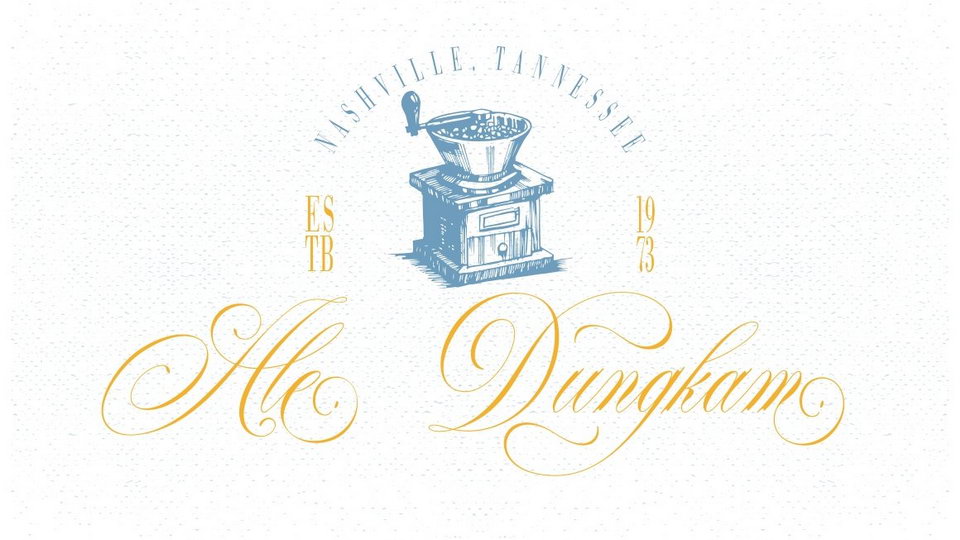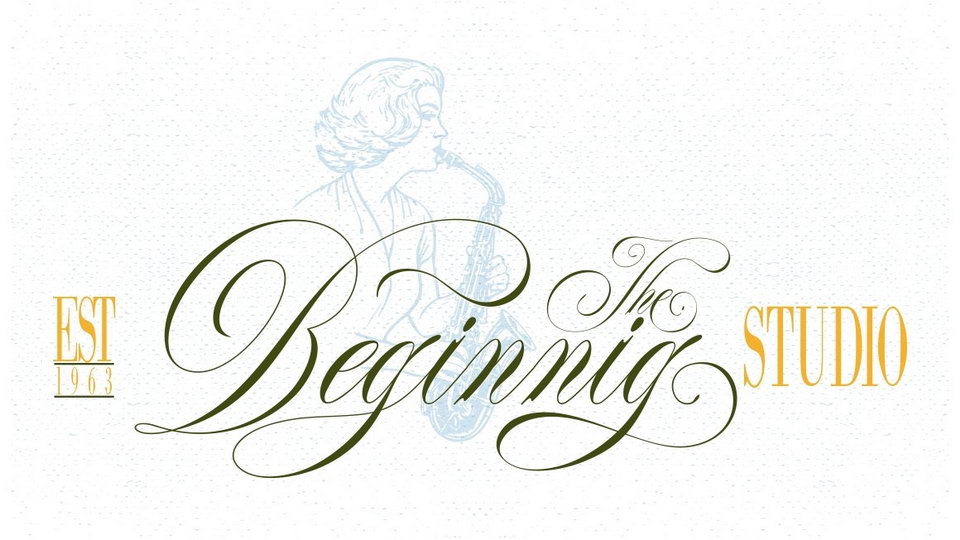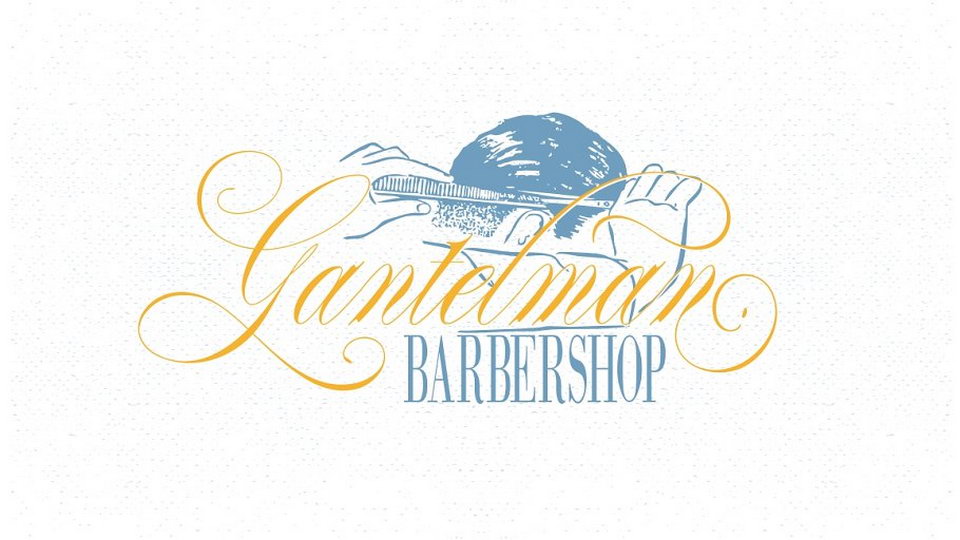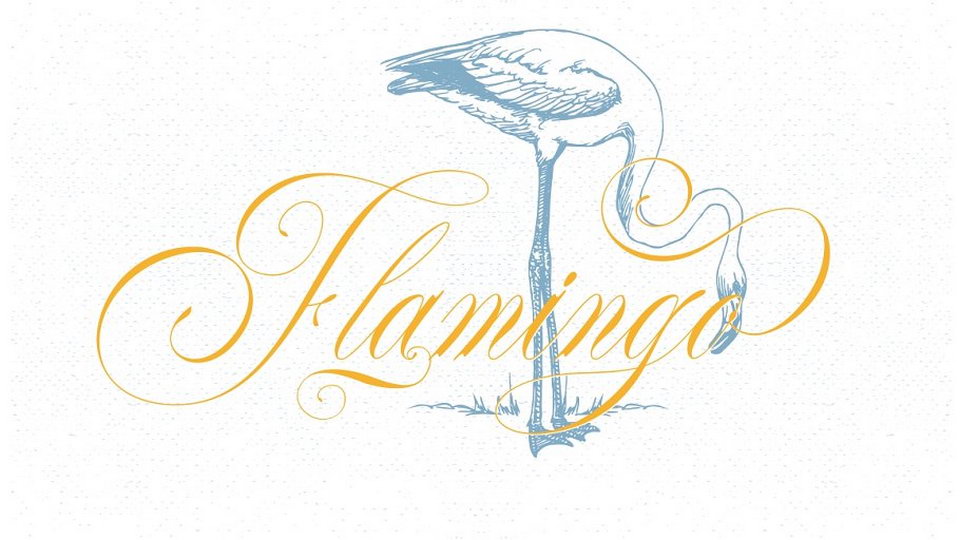
The Duality is a gorgeous script typeface, every letter has been carefully crafted to make your text look beautiful. This font is perfect for logos, badges, shirts, labels, clothing designs, etc.
Try The Duality, enjoy the richness of OpenType features and let her fun and elegant excitement make you happy and enhance your creativity! You can use this font very easily.